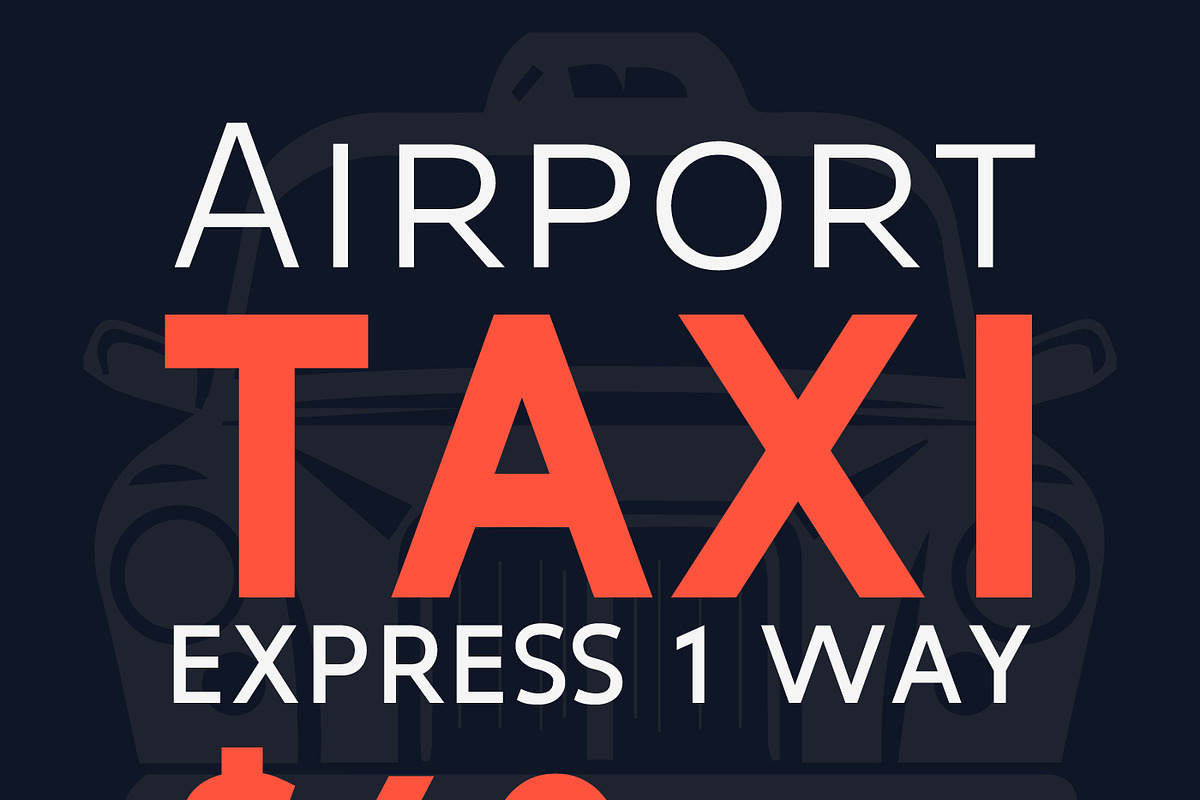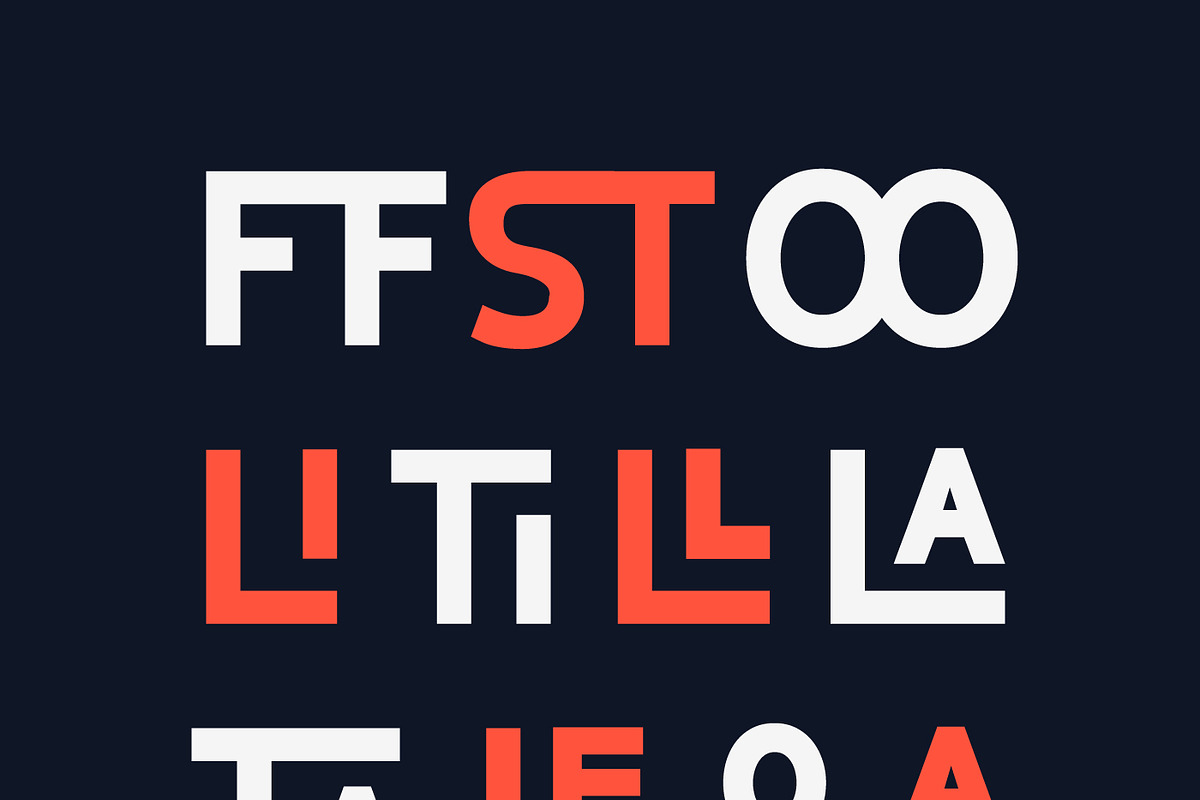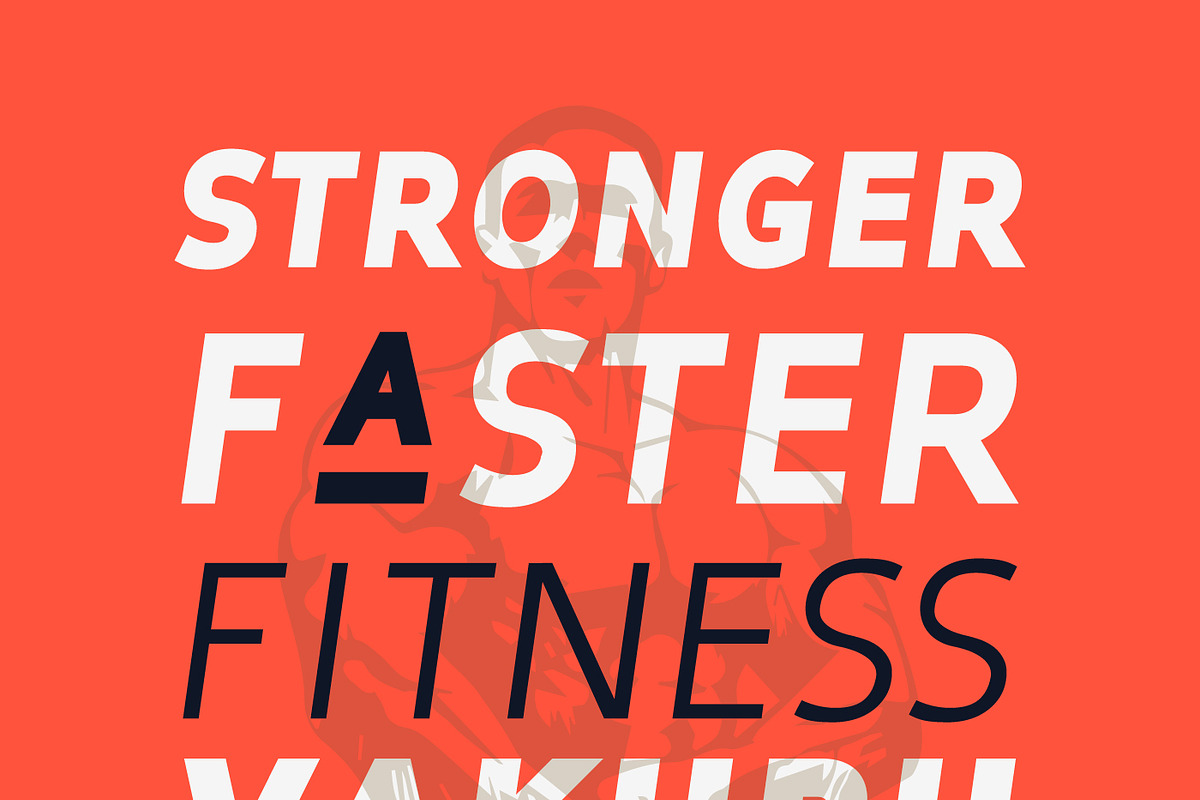
Tuckshop Titling
Tuckshop Titling is an all-caps display font inspired by Tuckshop sign writing in Chinotimba, Victoria Falls; a small town in Zimbabwe. It is bold and legible spiced up with interesting ligatures that gives it a fit dose of character that will make any dull design interesting. It is specially made for display purposes notably posters, headlines, t-shirts, sign writing, billboards and logotypes. Have fun with it!!!